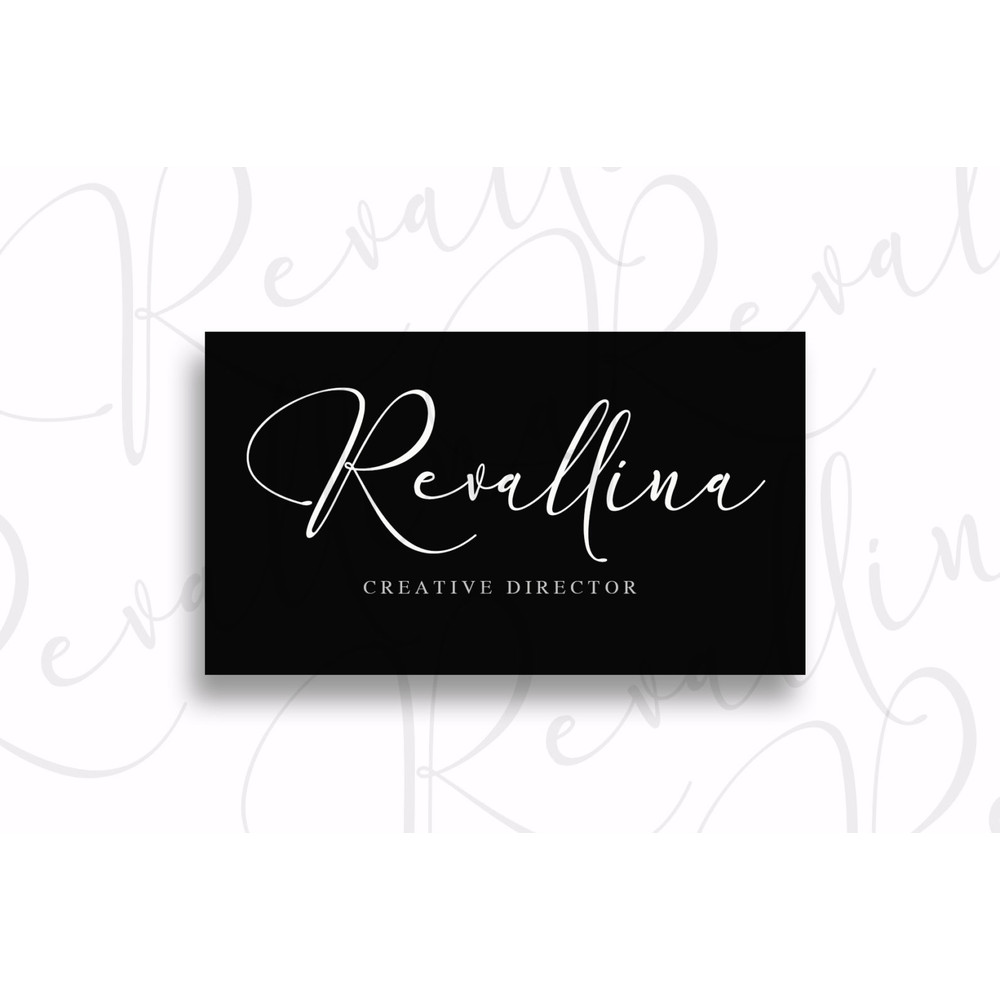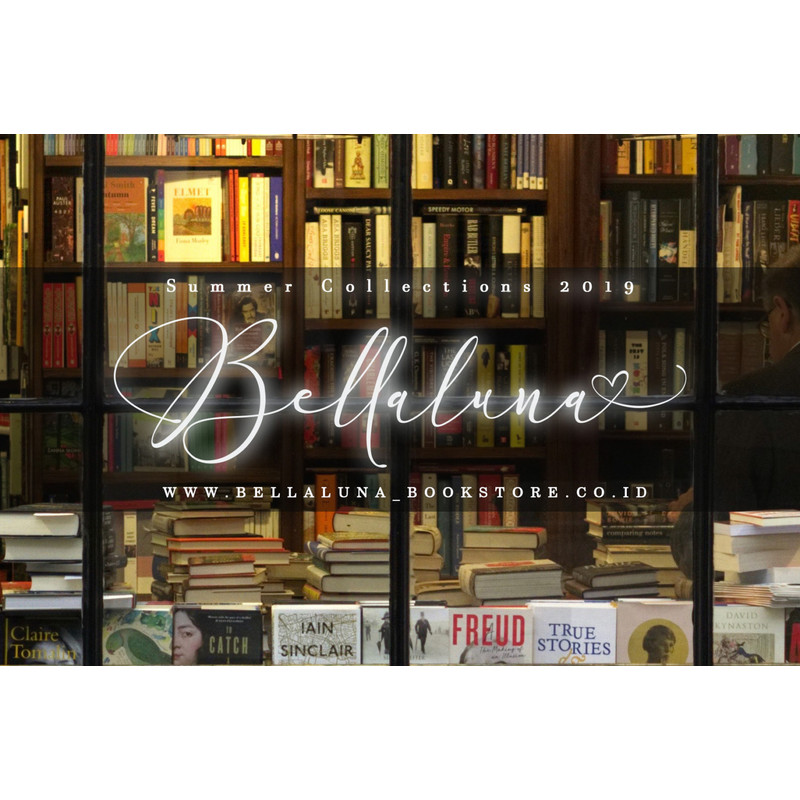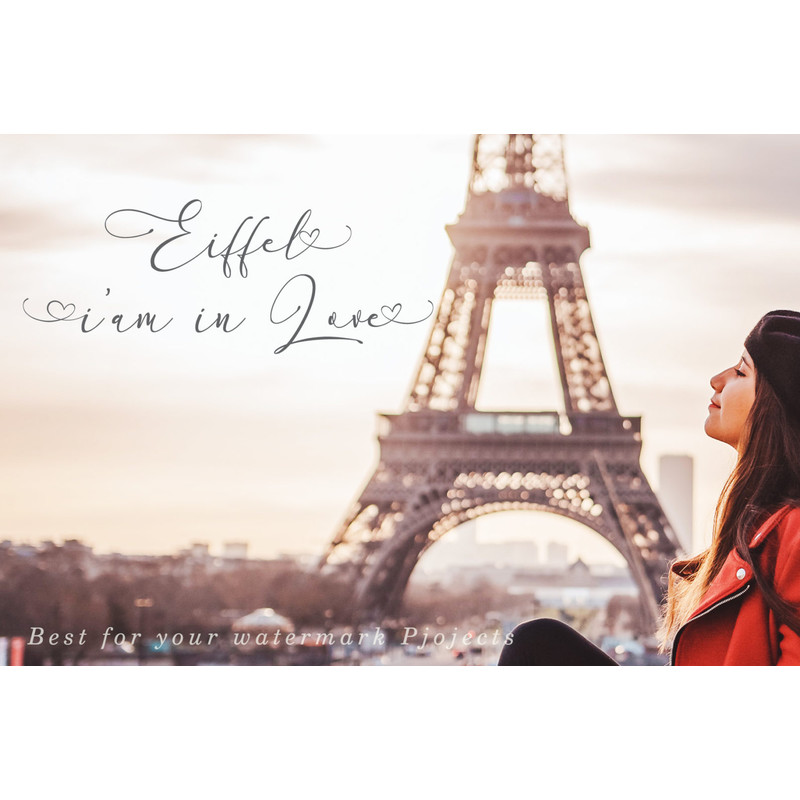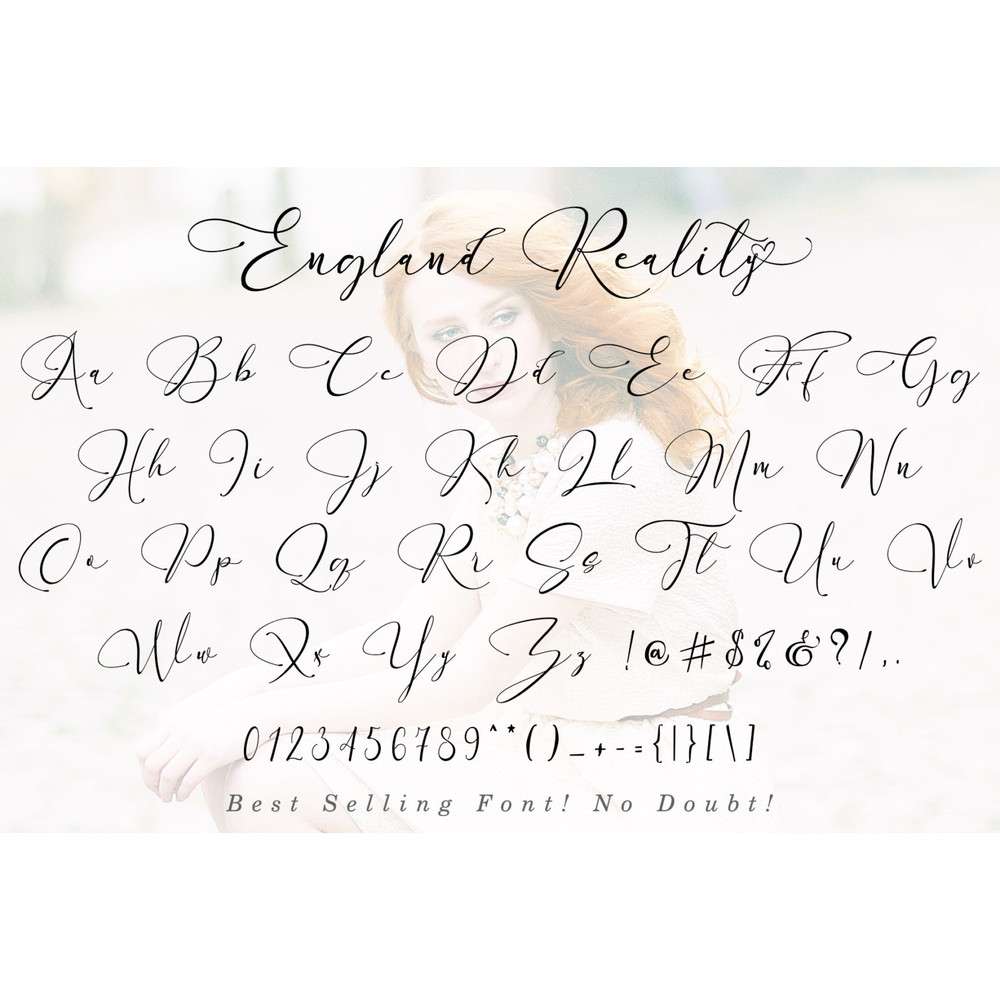
England Reality – Luxury Script is a stylish handwritten font that features a varying baseline, smooth line, modern and with a depth love. For those of you who are need a touch of love and modernity for your designs or branding, it can be used for various purposes such as headings, wedding, invitation, signature, logos, branding, t-shirt, letterhead, signage, lable, news, posters, badges etc.
Just imagine that your customers are women. They love to see something beautiful, elegant, and warm, right? You don’t need to get confused to find an interesting font to attract their attention. We have a special font namely “England Reality – Beautiful Script”. The font design looks simple without losing its elegance and warmness. The function of the font is to show that you have a modern spirit to serve high-quality products and services.
We design this font with OpenType features to give an artistic touch on it. This font is also applicable for numbers, punctuation, and other languages. It is also a multifunction font where you can use for a business logo, branding, wedding invitation, and anything you want.